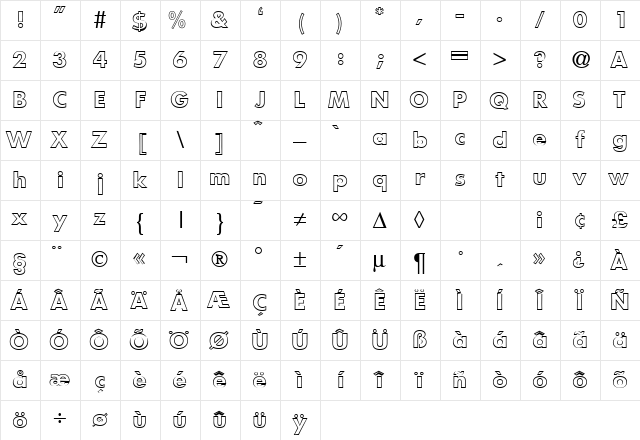
FunctionTwoOutline Bold
Design Context for FunctionTwoOutline
FunctionTwoOutline has an approachable, lighthearted character - its loose, expressive forms are well-suited to children's content, casual branding, and fun-first design.
Font Pairing: Pairs well with a rounded or humanist sans for body copy, maintaining the friendly tone without relying on FunctionTwoOutline to carry extended reading.
Pro Tip: Use FunctionTwoOutline at larger display sizes where its expressive character can land. Pair with a clean, simple sans for body copy to maintain readability.